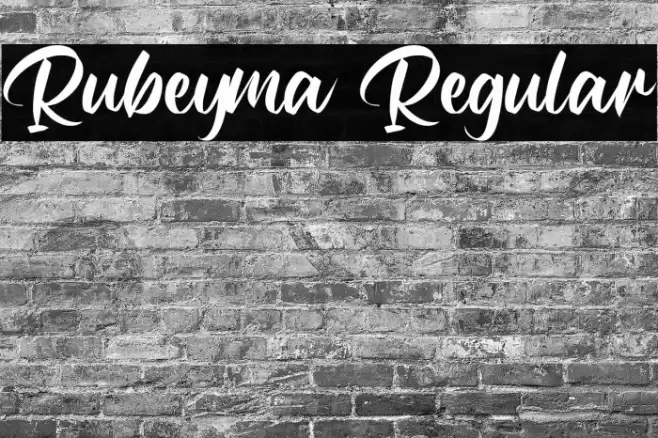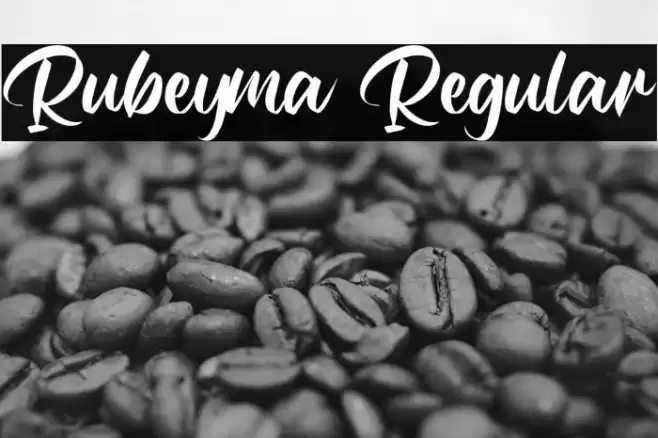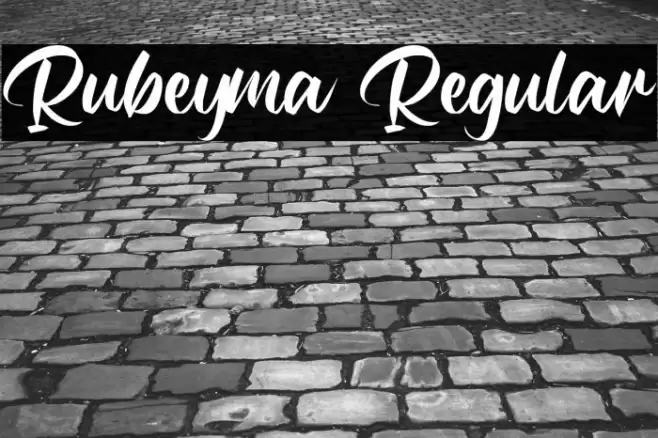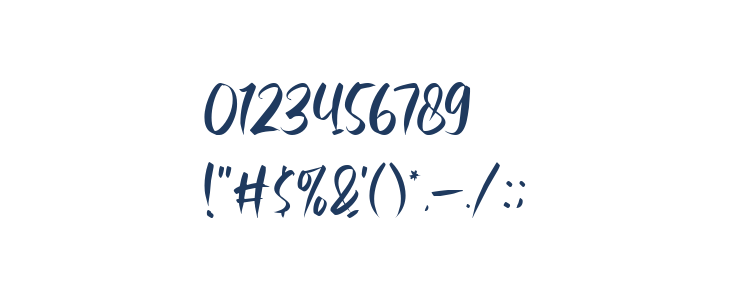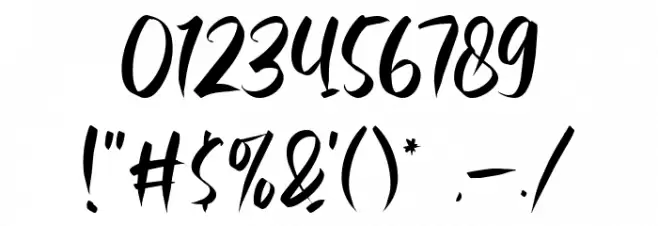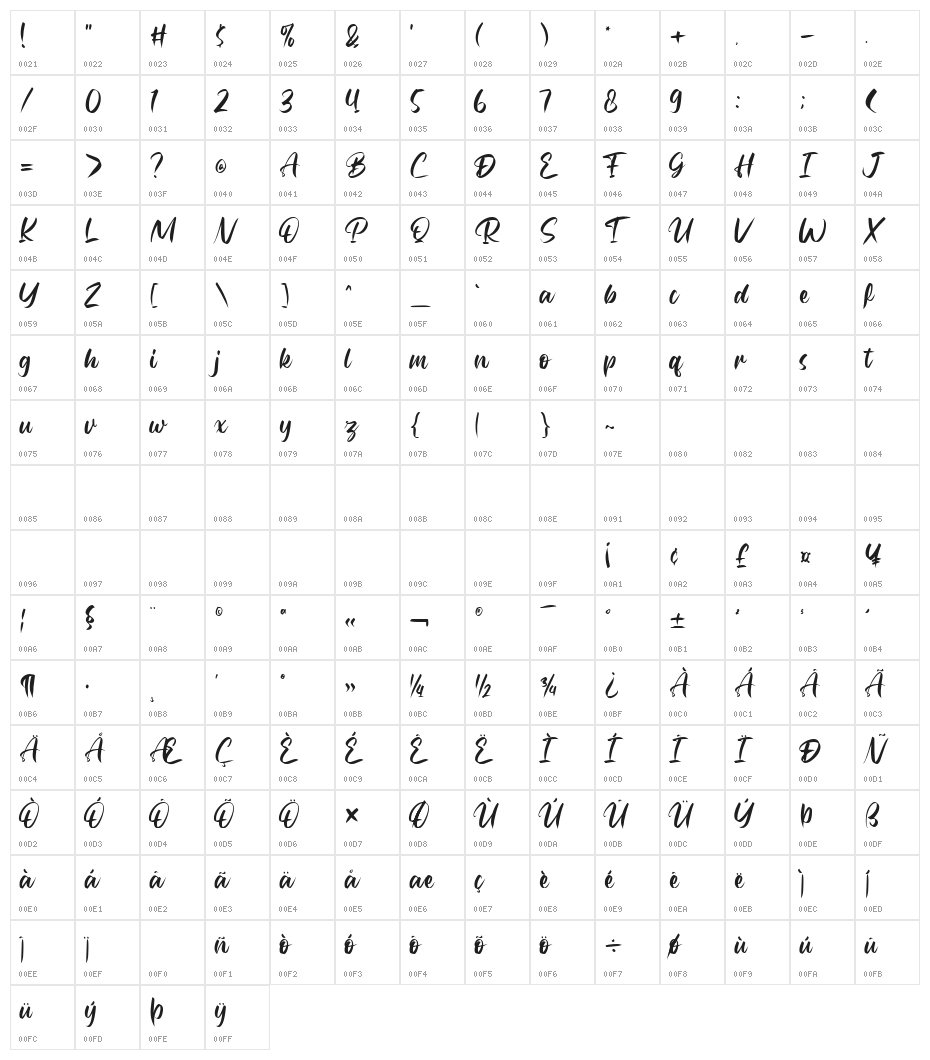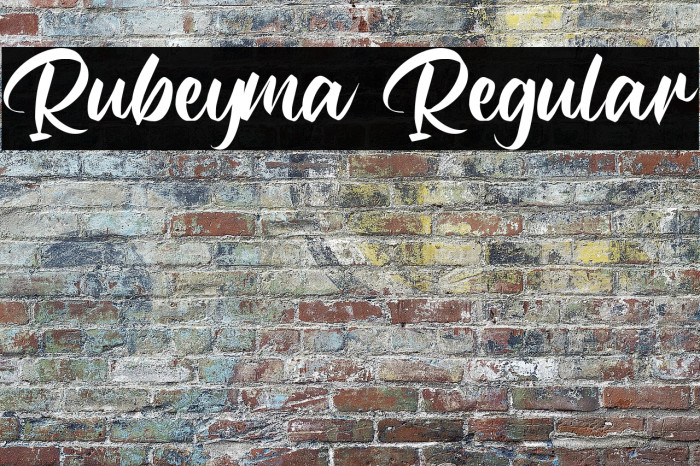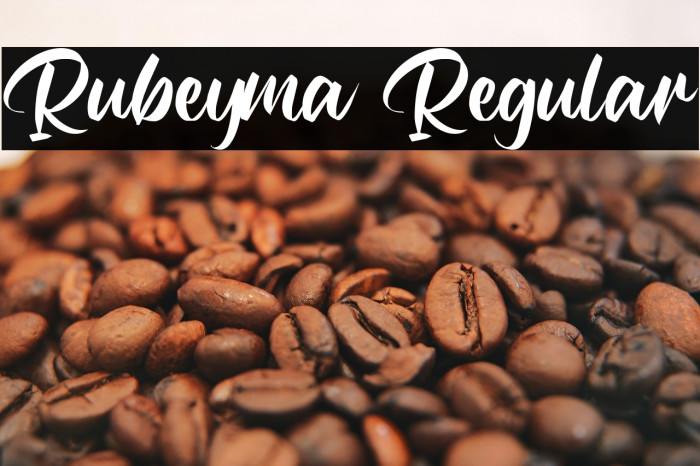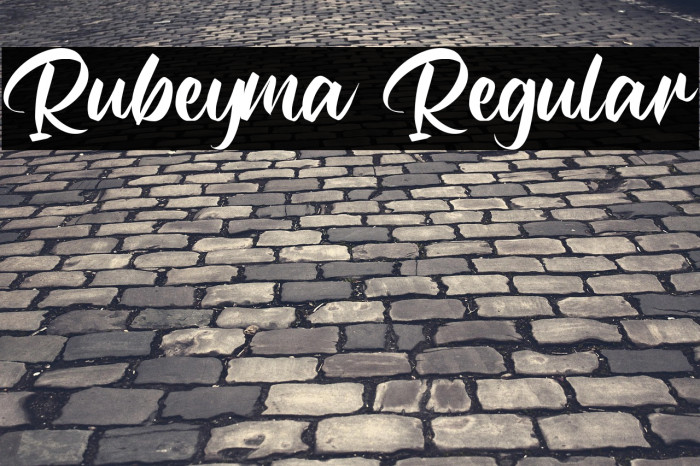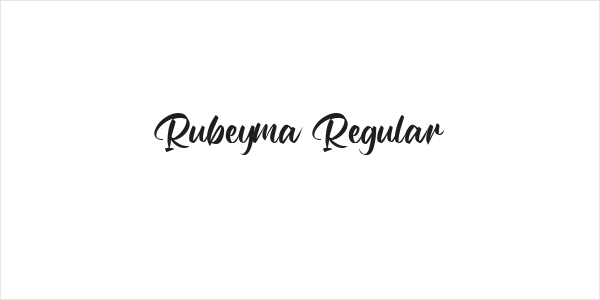
Rubeyma Regular Font
Rubeyma Regular Description
This font features a dynamic and expressive script style, characterized by its fluid and elegant strokes. The letters are interconnected, giving a sense of continuity and flow, reminiscent of traditional calligraphy. The uppercase letters are bold and prominent, while the lowercase letters maintain a consistent rhythm and balance. The numerals and special characters are designed to complement the overall aesthetic, with a playful yet sophisticated touch. This font exudes a sense of creativity and artistry, making it suitable for projects that require a personal and handcrafted feel.
A dynamic script font with fluid, interconnected strokes and a calligraphic style from Regular fonts.